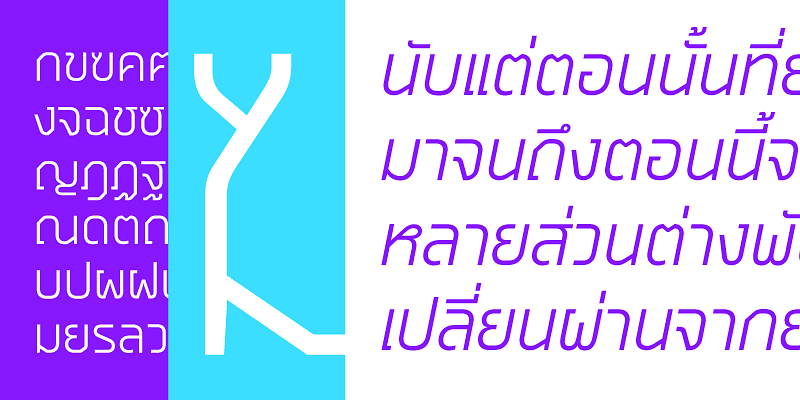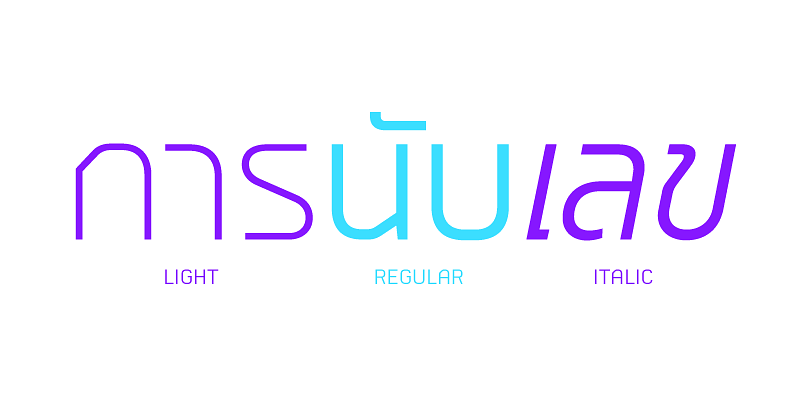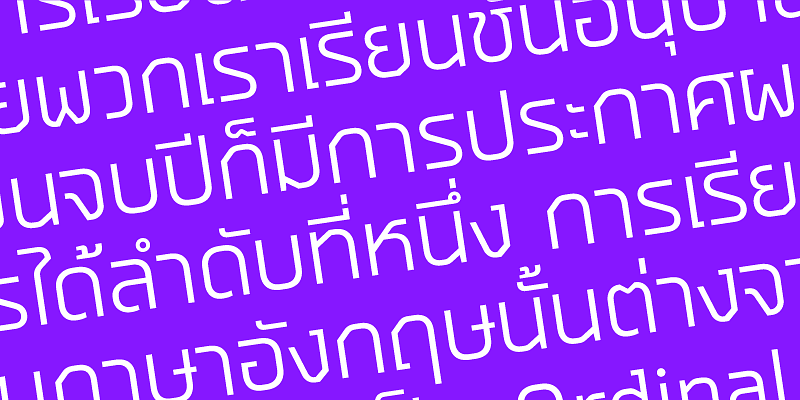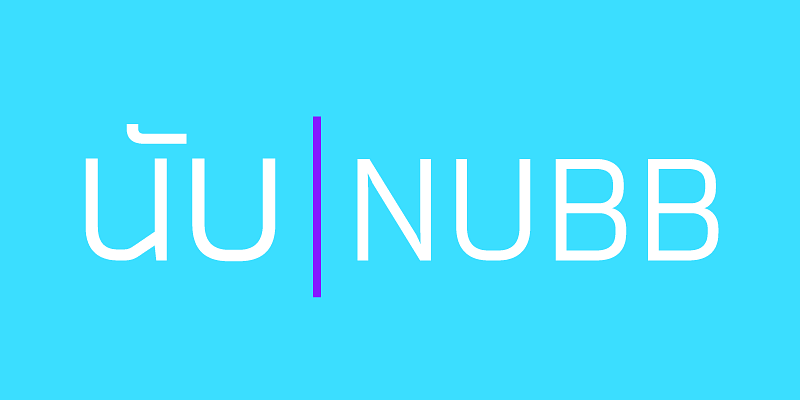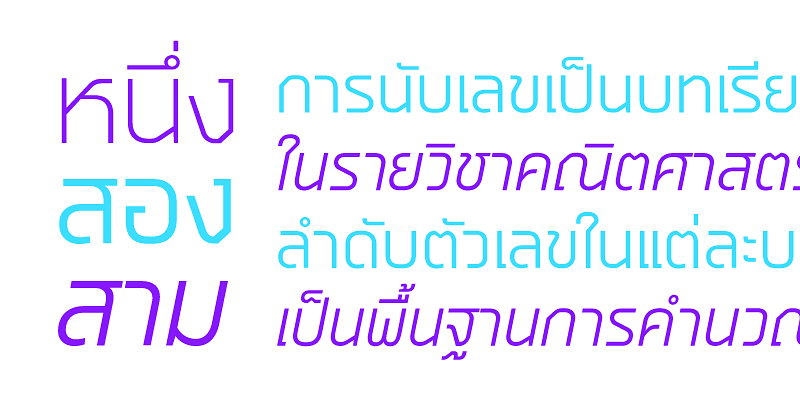
An eccentric geometric Sans Serif Family with distinctive aspects, providing a simplistic look through open terminals and special characters that is designed for use in contemporary commercial businesses.